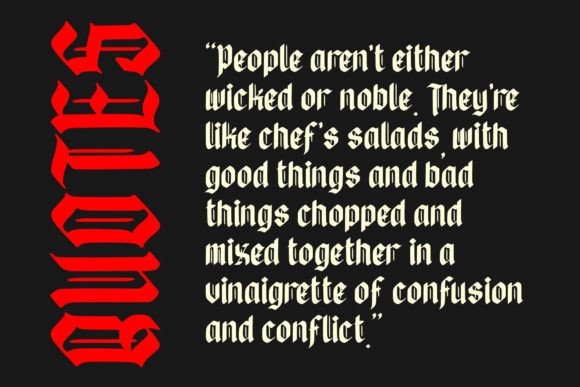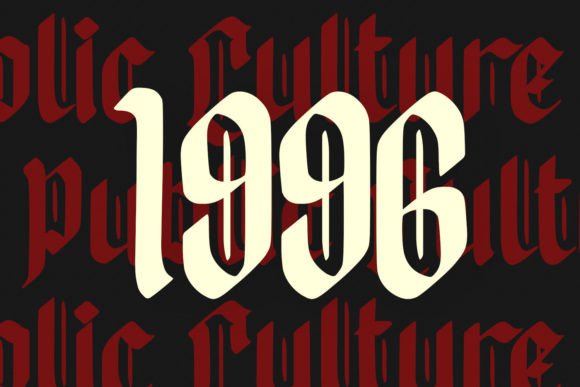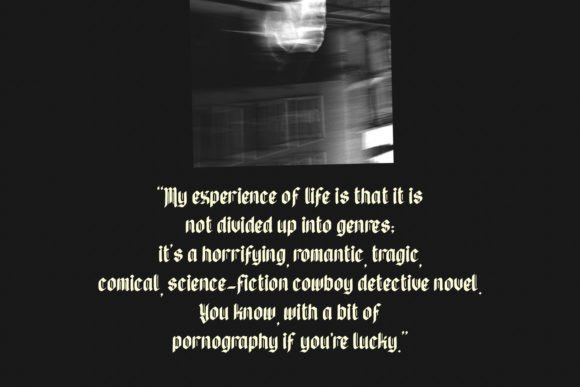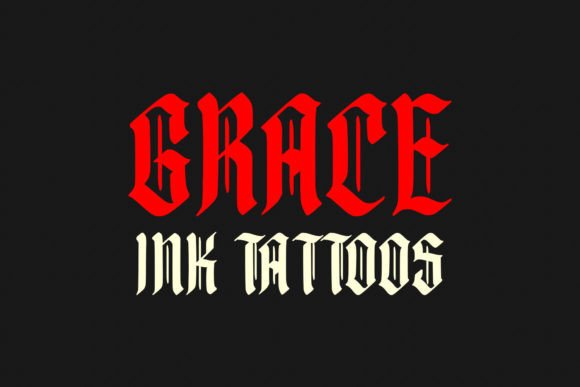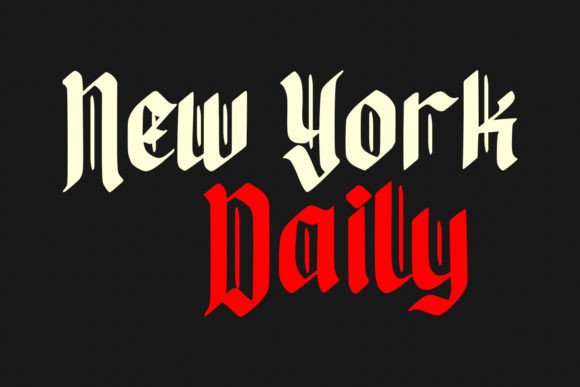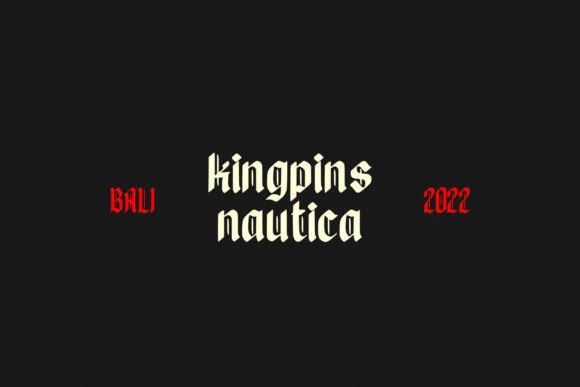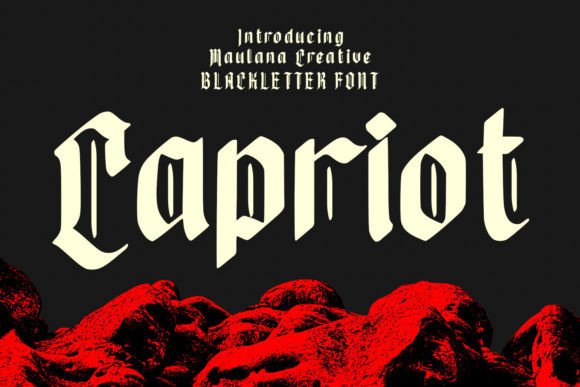
Introducing Capriot Font: The Modern and Stylish Blackletter Font
In the world of typography, blackletter fonts have always been a popular choice for designers and crafters looking to add a touch of elegance and sophistication to their creations. One such font that has been making waves in the design community is Capriot Font, a modern and stylish blackletter font that is sure to elevate any project. In this article, we’ll take a closer look at Capriot Font, its features, and why it’s an incredible asset to your font library.
What is Capriot Font?
Capriot Font is a modern blackletter font that combines traditional Gothic elements with a contemporary twist. Its unique design makes it perfect for a wide range of applications, from branding and advertising to packaging and digital media. Whether you’re a designer, crafter, or simply a typography enthusiast, Capriot Font is sure to impress.
Key Features of Capriot Font
- Unique and Stylish Design: Capriot Font boasts a distinctive and stylish design that sets it apart from other blackletter fonts. Its elegant lines, intricate details, and modern flair make it perfect for designs that require a touch of sophistication.
- Versatile and Adaptable: Capriot Font is incredibly versatile and can be used for a wide range of applications, from headings and titles to body text and captions.
- Highly Legible: Despite its ornate design, Capriot Font is highly legible, making it perfect for use in both print and digital media.
- Multilingual Support: Capriot Font supports multiple languages, making it a great choice for designers and crafters who work with international clients or need to create multilingual content.
Why Choose Capriot Font?
So, why should you choose Capriot Font for your next project? Here are just a few reasons:
- Elevate Your Designs: Capriot Font has the potential to elevate any creation, adding a touch of elegance and sophistication that will set your designs apart from the rest.
How to Use Capriot Font
Using Capriot Font is easy! Here are a few tips to get you started:
- Pair it with Other Fonts: Capriot Font pairs well with other fonts, including sans-serif fonts, and script fonts. Experiment with different combinations to find the perfect look for your design.
- Use it for Headings and Titles: Capriot Font is perfect for use in headings and titles, where its elegant design can really shine.
- Experiment with Different Colors and Textures: Capriot Font looks great in a variety of colors and textures. Experiment with different options to find the perfect look for your design.
In conclusion, Capriot Font is a modern and stylish blackletter font that is sure to elevate any creation. Its unique design, versatility, and high legibility make it perfect for a wide range of applications, from branding and advertising to packaging and digital media. Whether you’re a designer, crafter, or simply a typography enthusiast, Capriot Font is an incredible asset to your font library.